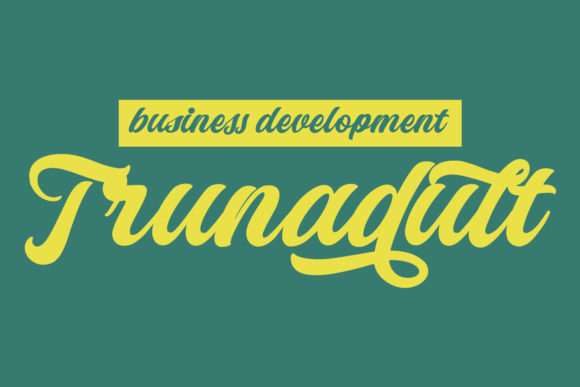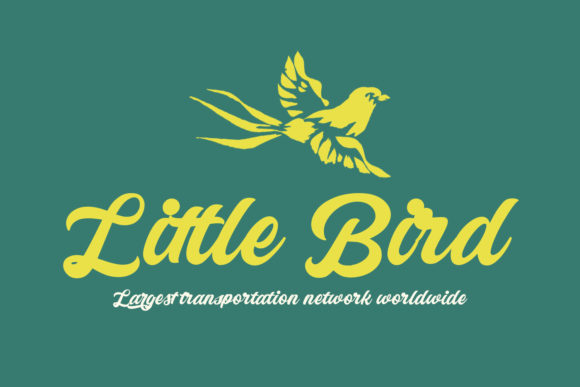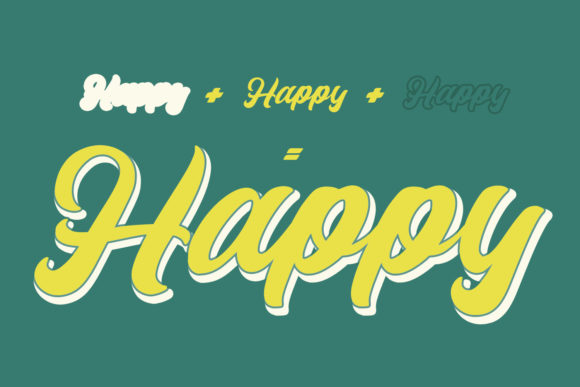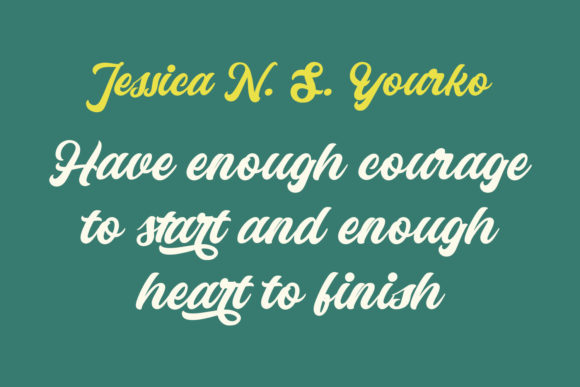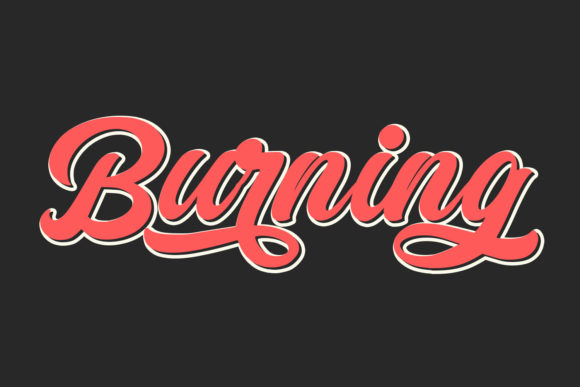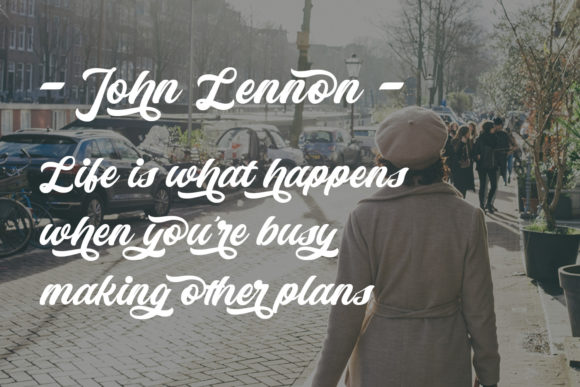
Garleco Font: Elevate Your Designs with a Retro and Bold Handwritten Style
In the world of typography, fonts play a crucial role in making or breaking a design. A well-chosen font can instantly elevate your project, adding a touch of elegance and class. If you’re on the hunt for a unique and stylish font to make your designs stand out, look no further than Garleco Font. In this article, we’ll dive into the world of Garleco, exploring its features, benefits, and uses, and why it’s a must-have for designers and crafters.
What is Garleco Font?
Garleco is a retro and bold handwritten font that is crafted with great care for maximum results. Its distinctive style is perfect for adding a touch of sophistication and glamour to any design project. Whether you’re working on a logo, branding materials, or marketing collateral, Garleco Font is sure to make a statement.
Key Features of Garleco Font
- Retro and Bold Style: Garleco Font boasts a unique retro and bold style that is sure to grab attention.
- Handwritten with Care: Each letter is carefully crafted to ensure maximum legibility and aesthetic appeal.
- Elegant and Classy: Garleco Font adds a touch of elegance and class to any design project.
- Versatile: This font can be used for a wide range of design projects, from logos and branding materials to marketing collateral and more.
Benefits of Using Garleco Font
So why choose Garleco Font for your design projects? Here are just a few benefits of using this amazing font:
- Stand Out from the Crowd: With its unique retro and bold style, Garleco Font is sure to make your designs stand out from the competition.
- Easy to Read: Despite its bold style, Garleco Font is surprisingly easy to read, making it perfect for use in a variety of design projects.
- Time-Saving: With Garleco Font, you can create stunning designs in no time, saving you valuable time and effort.
- High-Quality: Garleco Font is crafted with great care, ensuring a high-quality finish that will impress your clients and audience.
Uses of Garleco Font
So what can you use Garleco Font for? The possibilities are endless! Here are a few ideas to get you started:
- Logos and Branding Materials: Use Garleco Font to create a bold and eye-catching logo that will make your brand stand out.
- Marketing Collateral: From brochures and flyers to posters and billboards, Garleco Font is perfect for use in a wide range of marketing materials.
- Social Media Graphics: Add a touch of elegance and class to your social media graphics with Garleco Font.
- Packaging Design: Use Garleco Font to create stunning packaging designs that will make your products stand out on store shelves.
Tips for Using Garleco Font
To get the most out of Garleco Font, here are a few tips to keep in mind:
- Use it Sparingly: While Garleco Font is bold and eye-catching, it can be overwhelming if used too much. Use it sparingly to create maximum impact.
- Pair it with Other Fonts: Experiment with pairing Garleco Font with other fonts to create a unique and stylish look.